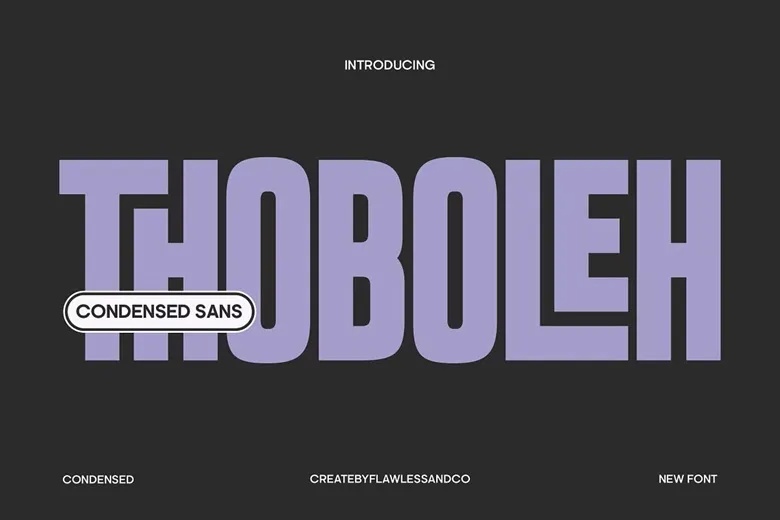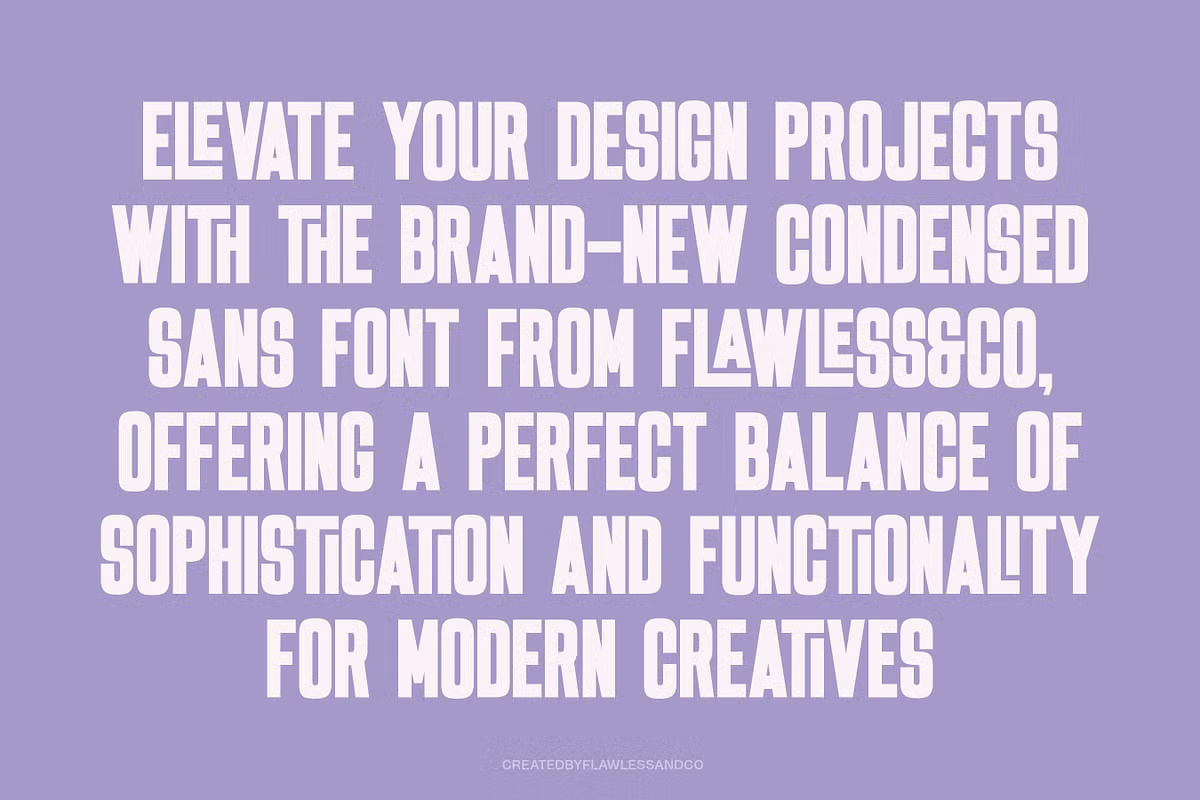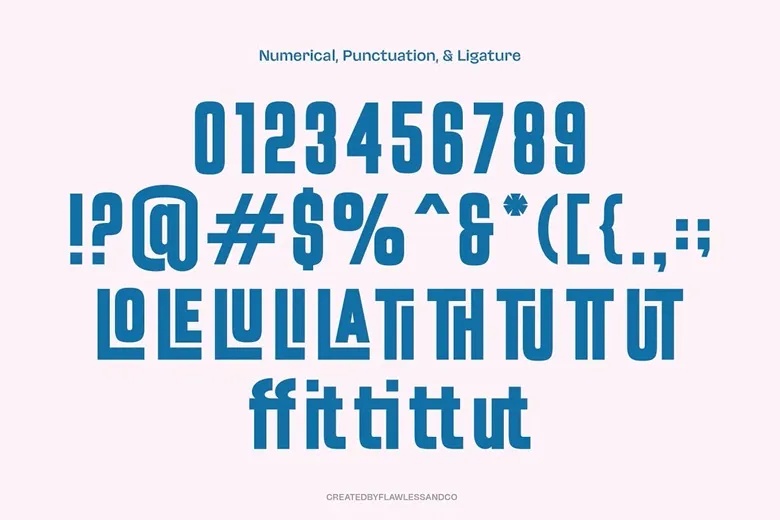
Thoboleh is a condensed sans with a cheeky streak. Flawless and Co made the strokes heavy and the letters tall, then let them lean and bump against each other, so a line looks bouncy rather than rigid. The logo sample overlaps the TH to show it off.
The specimen also shows a run of ligatures, such as TT, TH and LL, that tuck letters together. It covers upper and lowercase, numbers, punctuation and multilingual characters. Try it in two flat colours, like the lilac and blue in the preview, for a quick retro poster.
Best uses for Thoboleh
- Playful posters
- Snack and drink packaging
- Social media headlines
- Kids’ brands
- Event flyers
Pair Thoboleh with a clean sans. Nunito Sans keeps body text friendly. Poppins works for subheads. For contrast, try DM Serif Display in quotes.
Thoboleh Sans Serif Font